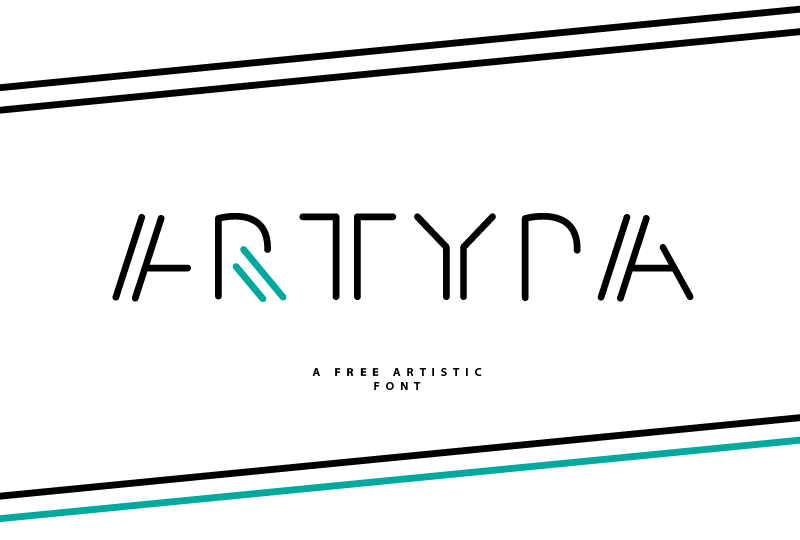
"ARTYPA" is my latest font project which is free for commercial use. The font features artistic designed characters for headlines or logos which can be used for anything a little bit more crazy and unique. Go to my website: www.phitradesign-fonts.com to get the whole family for FREE or pay whatever you want to support me. Thanks! |